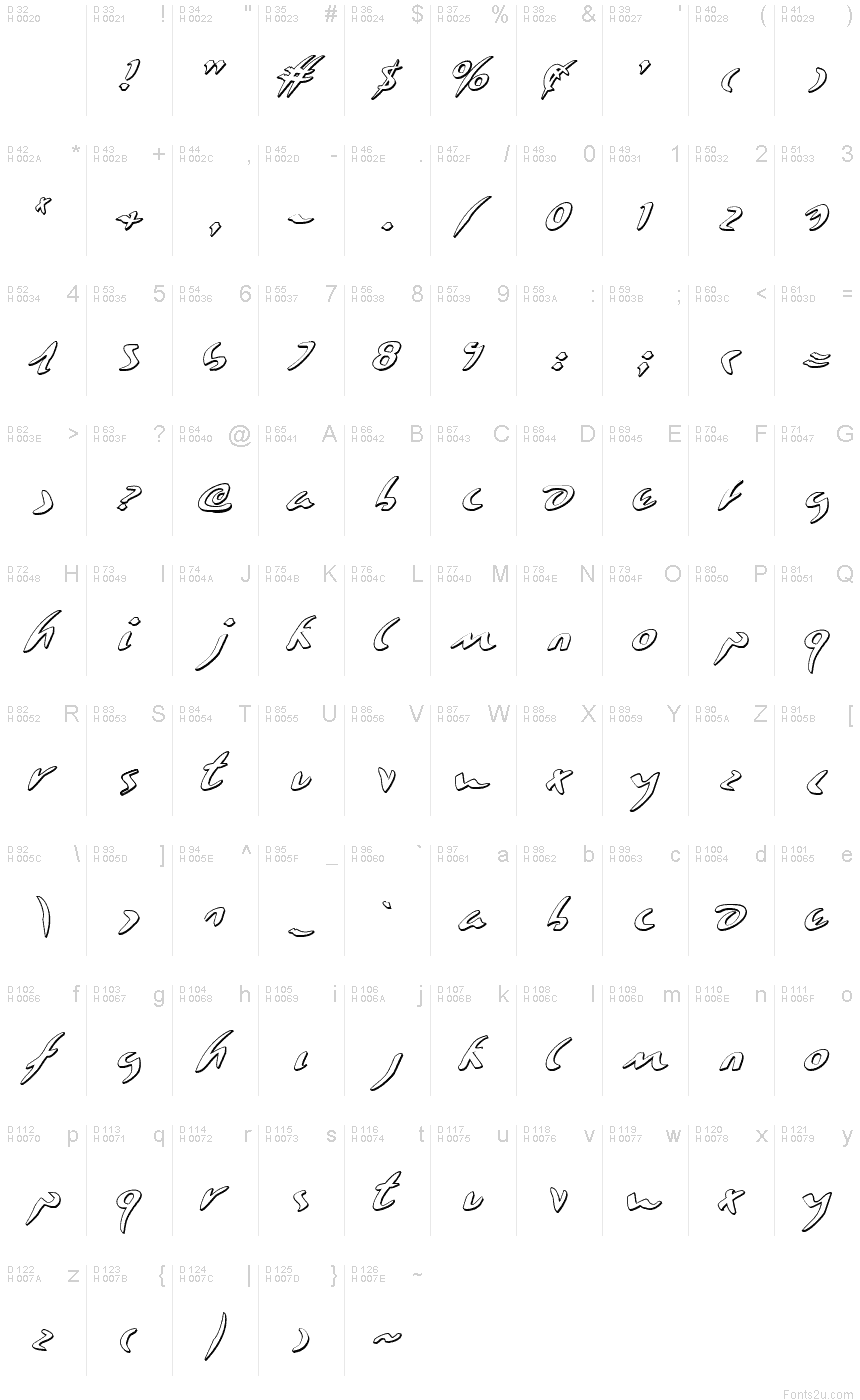
Eagleclaw 3D Italic by Daniel Zadorozny of Iconian Fonts is a free brush script with sweeping, right-leaning forms and a dark offset edge that suggests a cut-paper shadow. Broad curves give the lettering a quick hand-drawn motion.
Music, speed, and action themes suit its hooked strokes and emphatic slant, making it useful for album artwork, skate merchandise, event posters, and sports branding. In publishing, it can turn a magazine cover line or feature opener into an illustrated slash of lettering rather than a neutral caption.